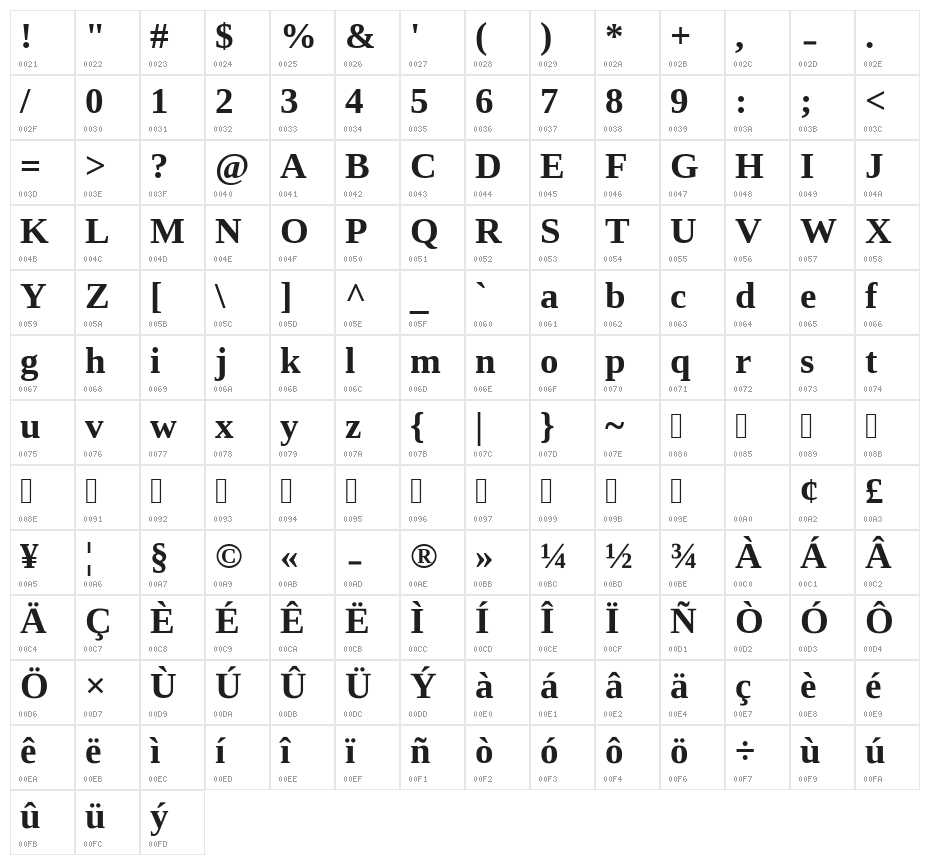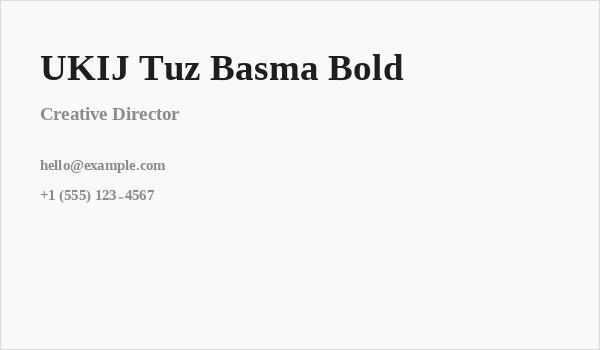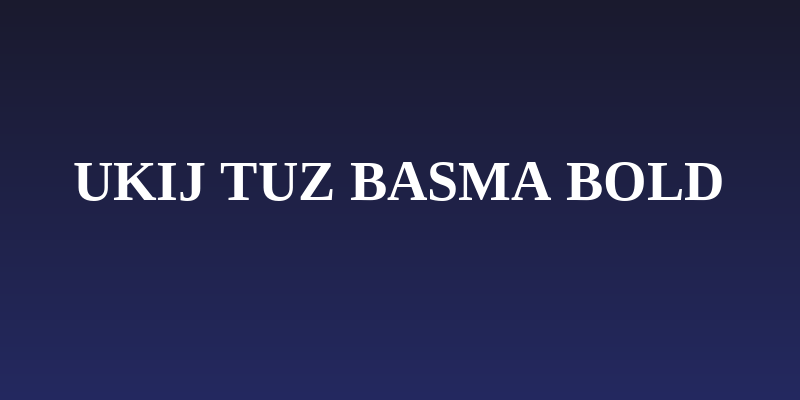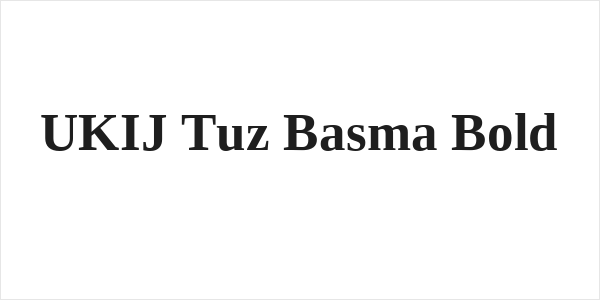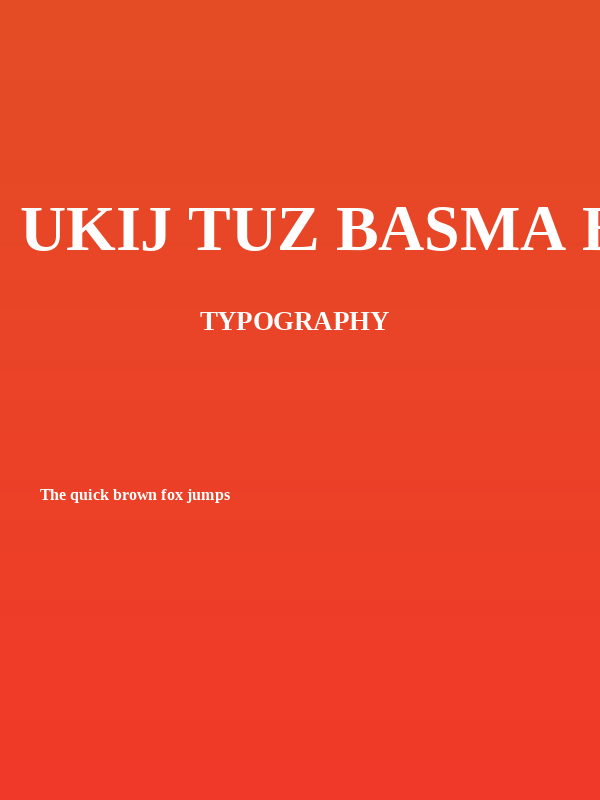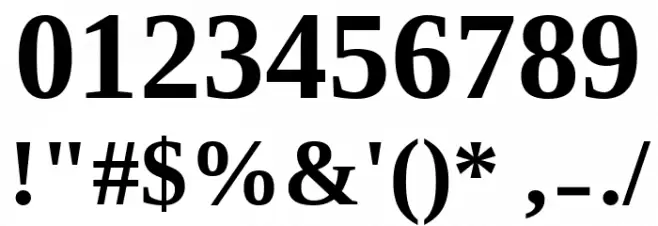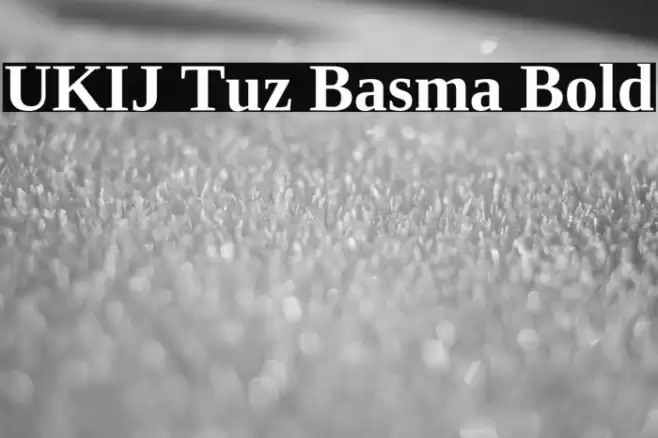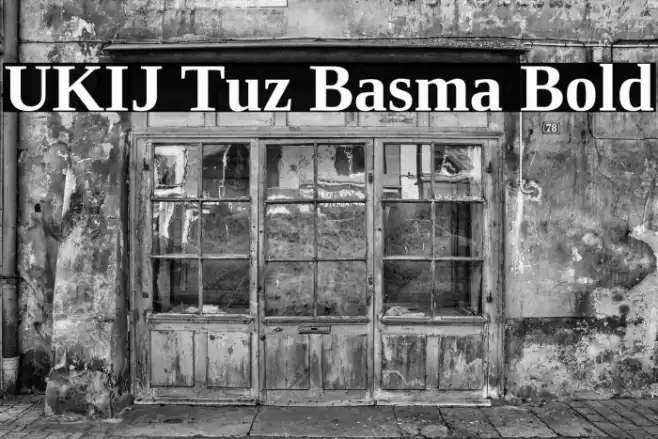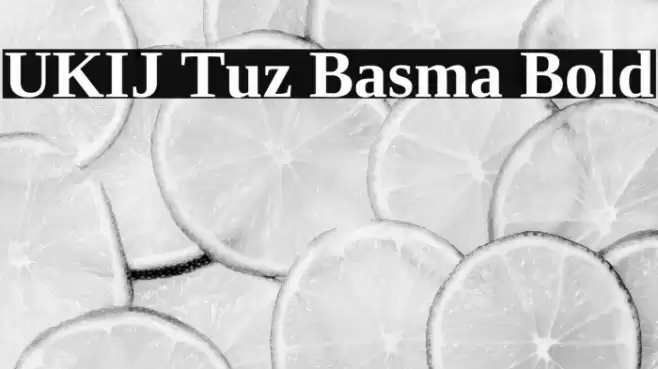
UKIJ Tuz Basma Bold Font
UKIJ Tuz Basma Bold Description
This font is a bold serif typeface characterized by its strong and authoritative presence. The letters feature thick, consistent strokes with sharp serifs that add a classic touch to the overall design. The uppercase letters are tall and commanding, while the lowercase letters maintain a balanced and readable form. The numerals are robust and align well with the overall boldness of the typeface. Special characters are designed with the same attention to detail, ensuring uniformity across all glyphs. This font is ideal for making a statement, whether in print or digital media.
| Proposed Projects | Ideal for headlines, book covers, posters, and branding materials that require a classic yet bold appearance. |
UKIJ Tuz Basma Bold